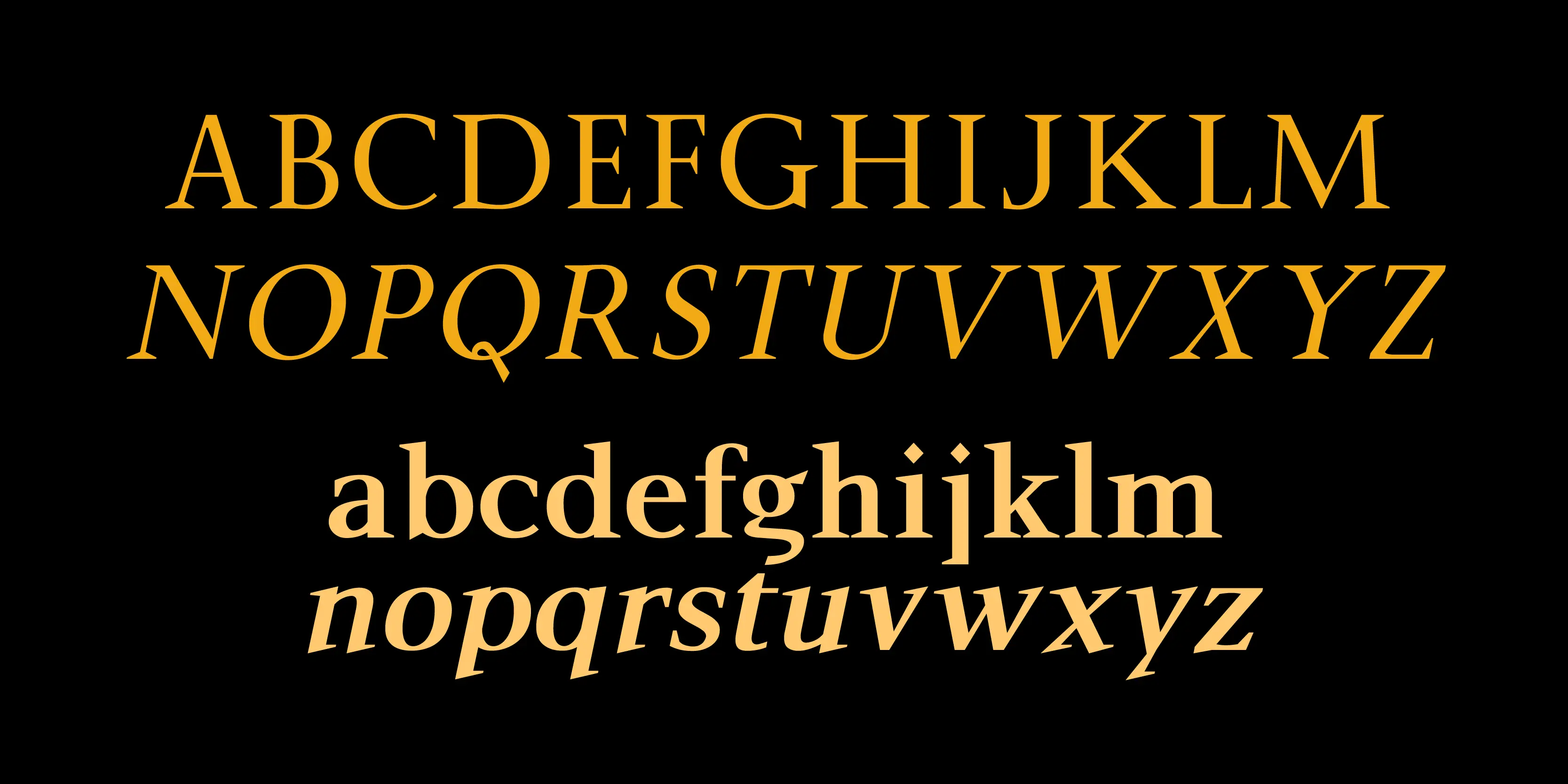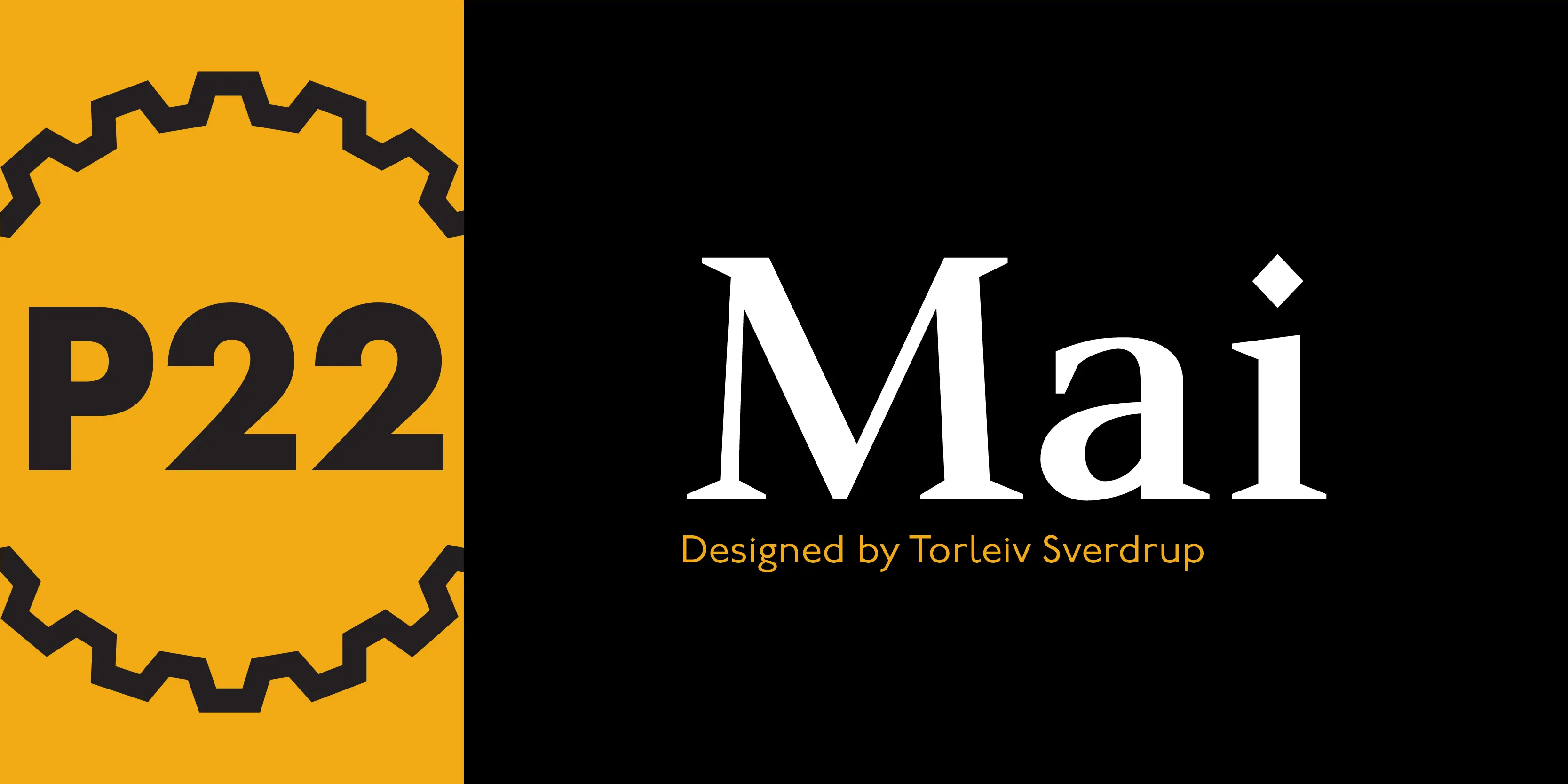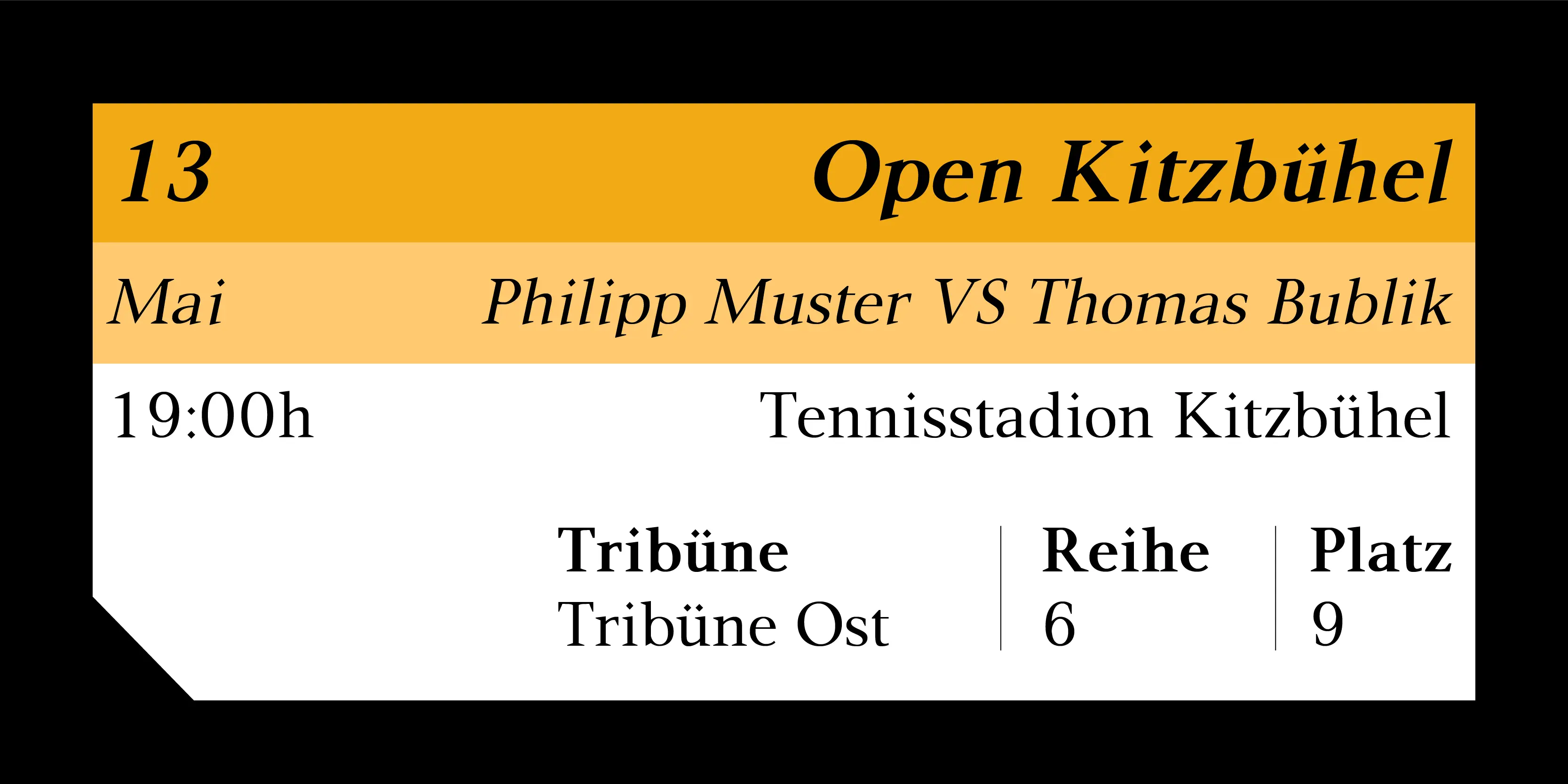
Mai Font Family
Mai
Mai Pro is a new transitional antiqua that features ligatures, smallcaps and full Central European support. Mai’s classic design is understated enough to be used for long running text applications yet includes unique characters suitable for design purposes. It is the Norwegian name for the month of May.
• Fractions
• Small Capitals
• Superscript